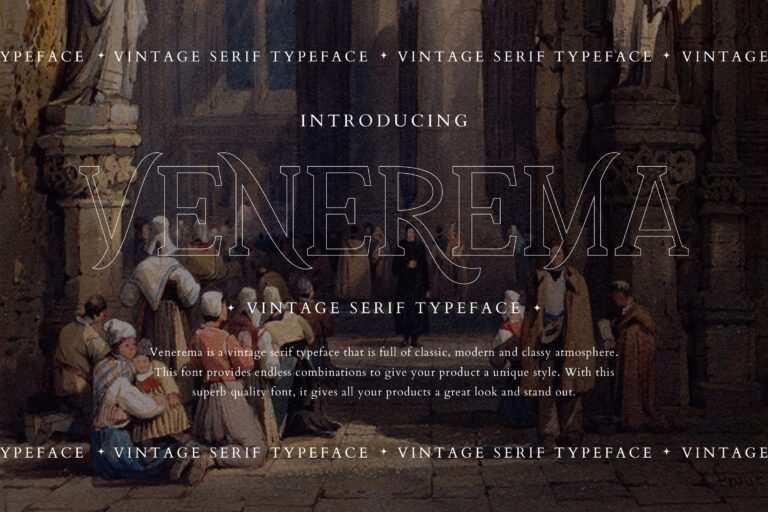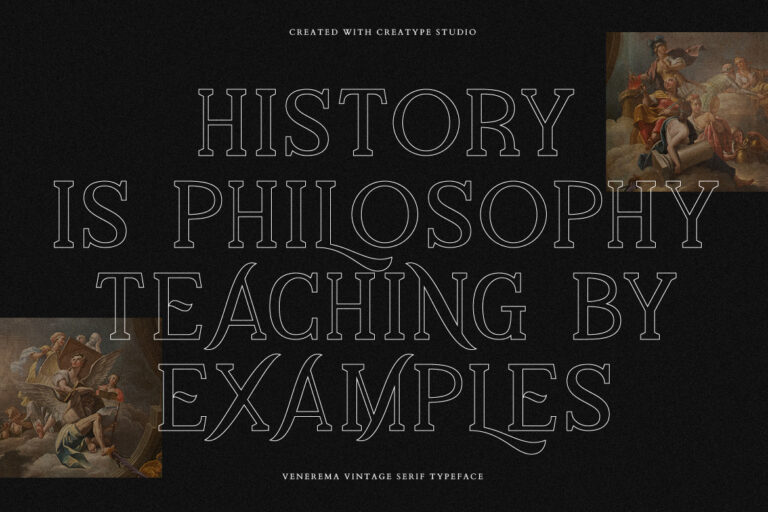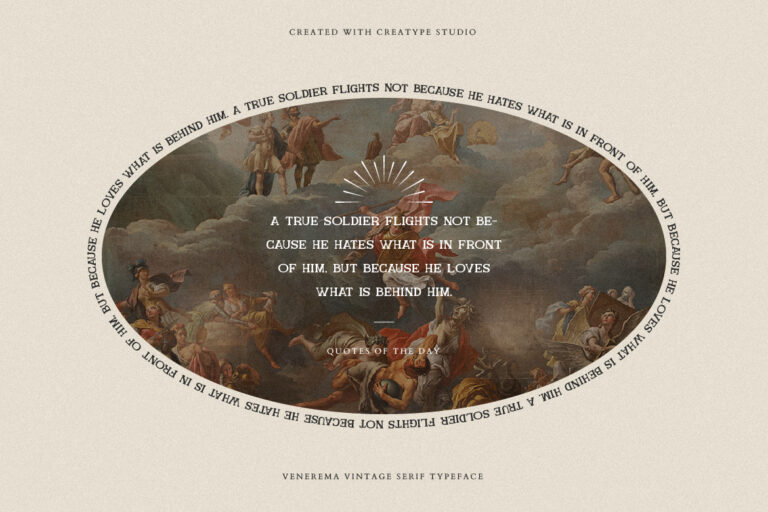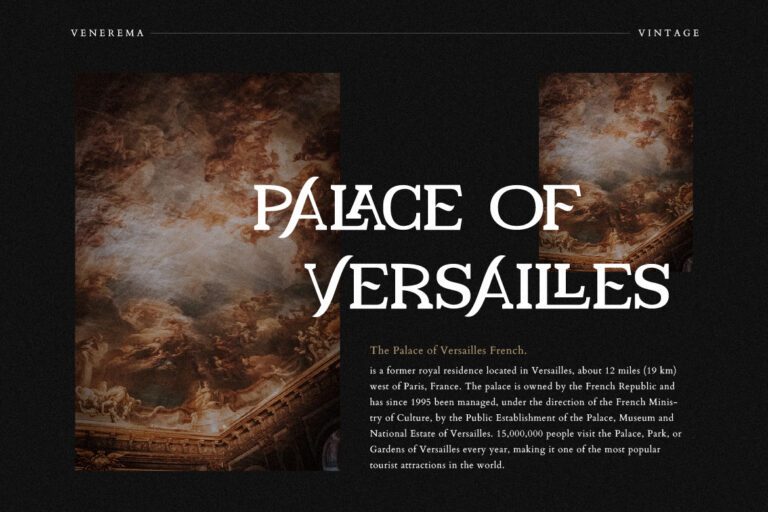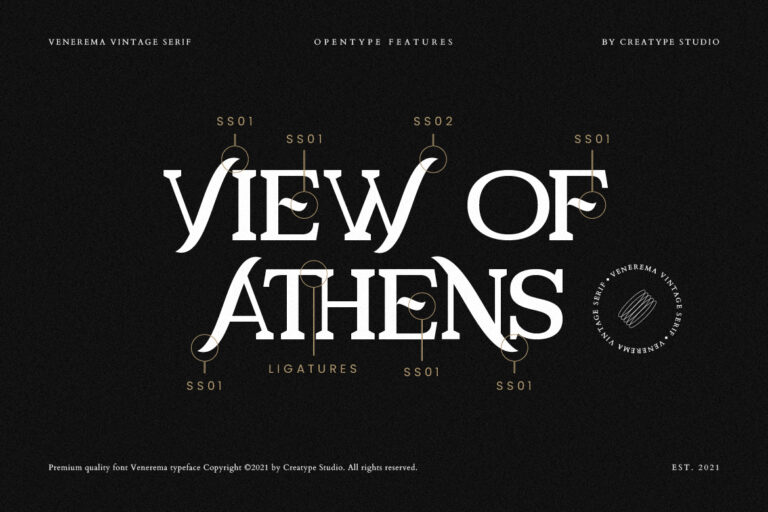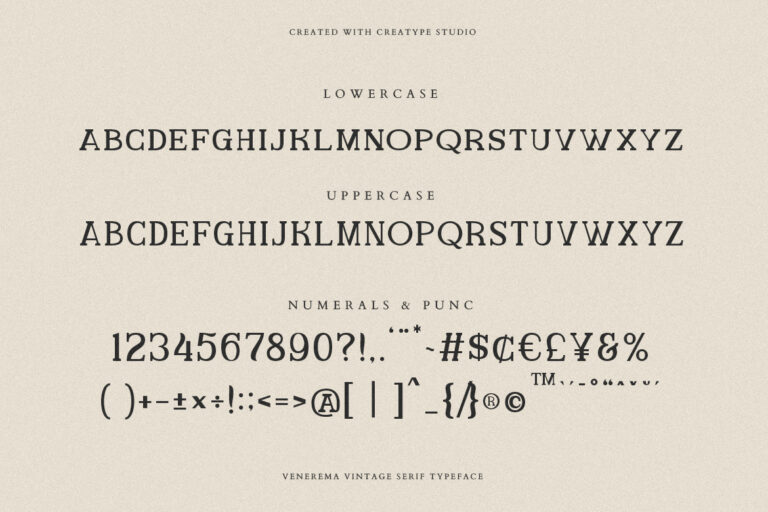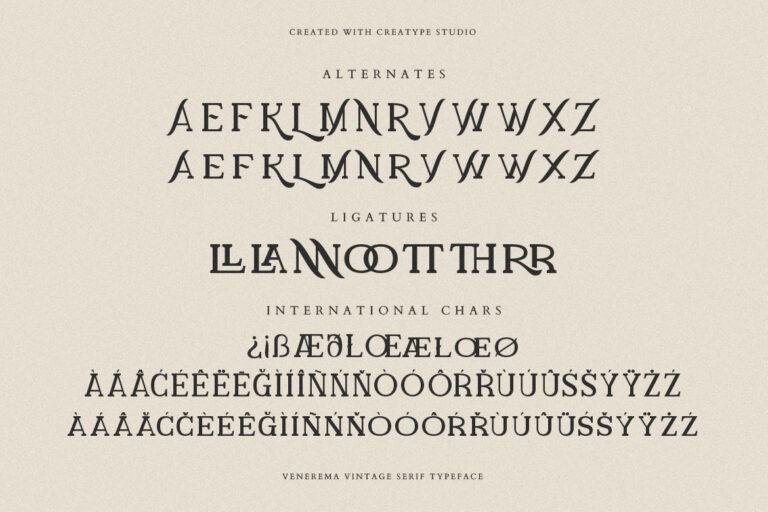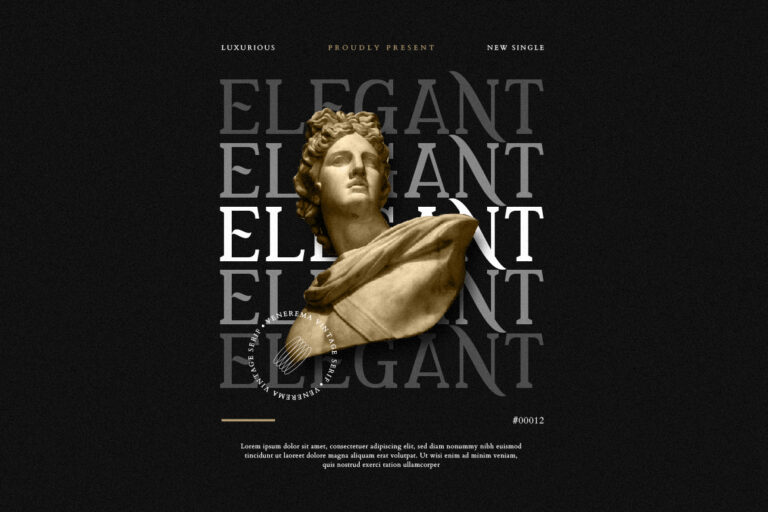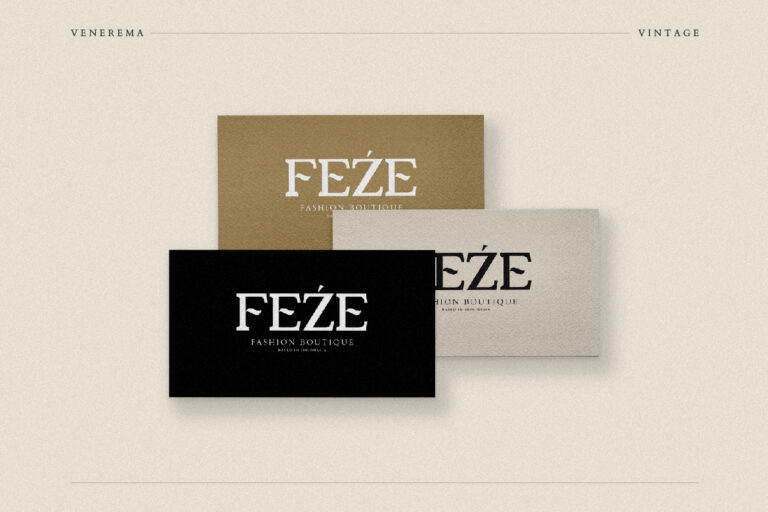
Venerema is a vintage serif typeface full of classic, modern and classy vibes. This font provides endless combinations to give your product a unique style. This excellent quality font gives all your products a nice and stand-out look.
Venerema is perfect for branding projects, logo, wedding designs, social media posts, advertisements, product packaging, product designs, label, photography, watermark, invitation, stationery and any projects that need handwriting taste.
Venerema Vintage Serif